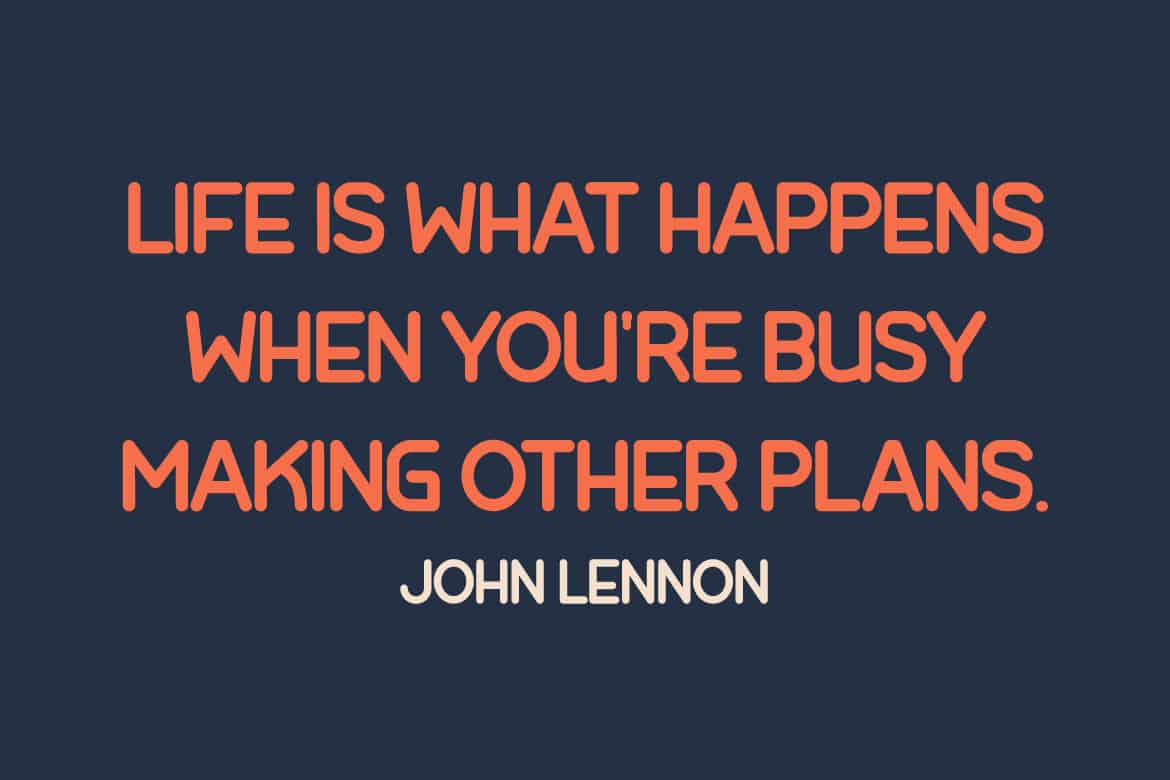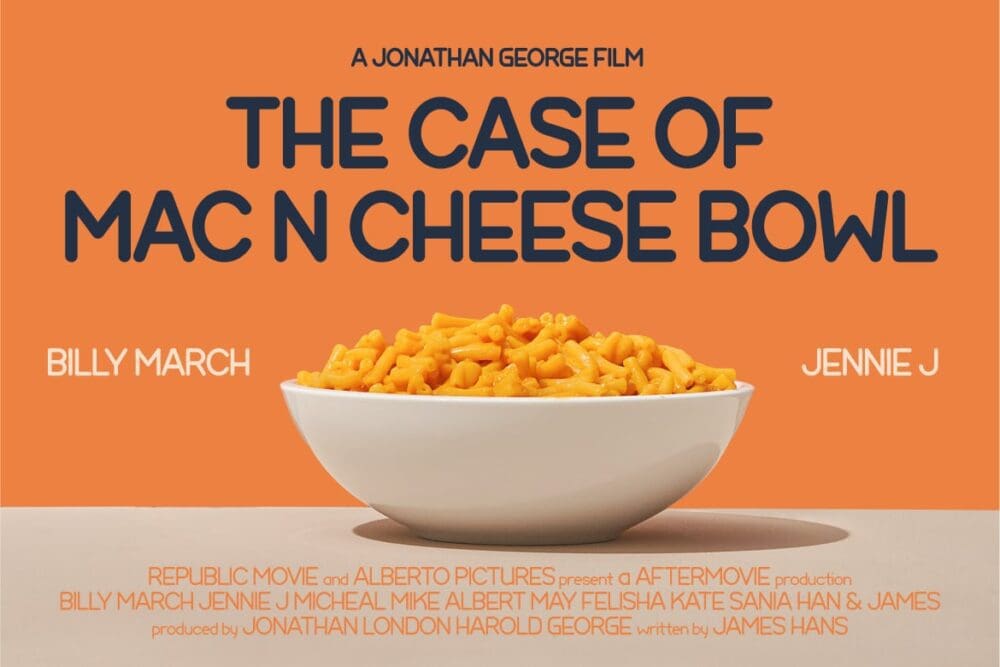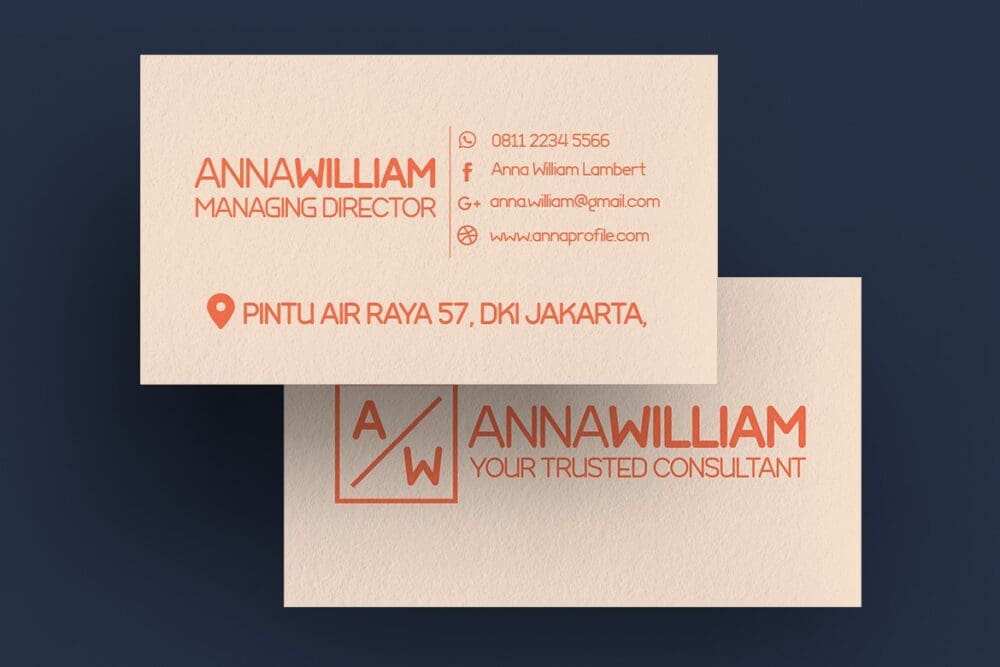
Kimora Font
Kimora is a sans serif typeface with a relaxed yet elegant tone. It’s a versatile font that can be used in both formal and informal settings. Because this typeface is comfortable to read, every message you send will be readily read and comprehended.